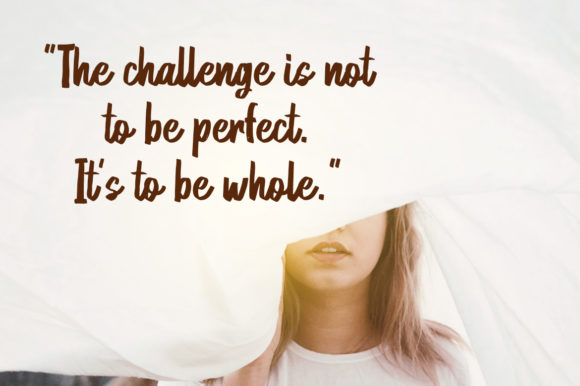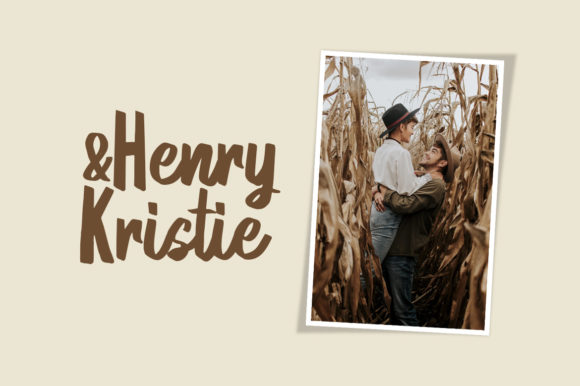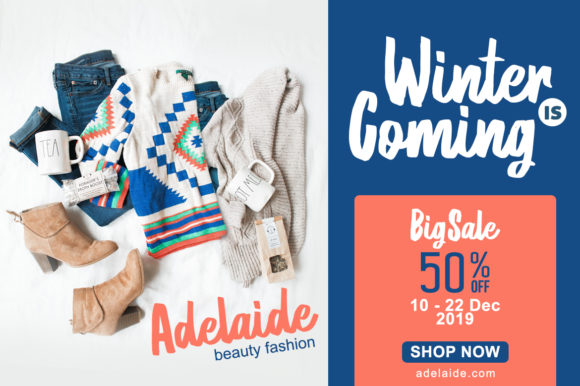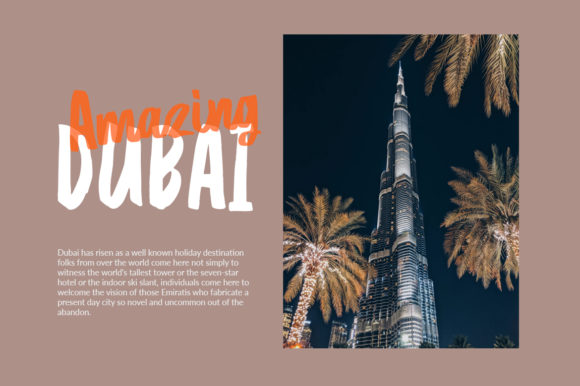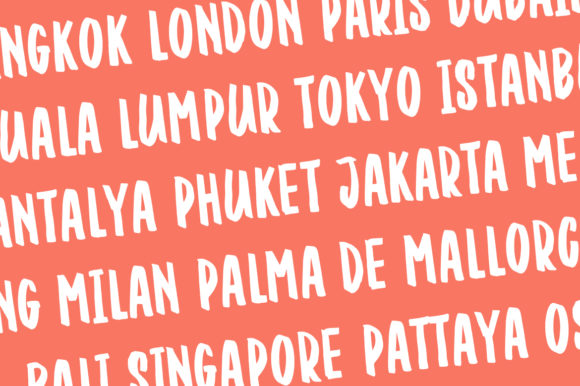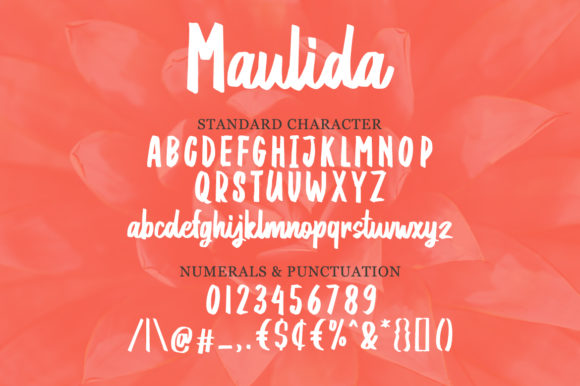
Maulida Font – Free Download
Introduction to Maulida Font
Maulida features unique strokes, making it beautiful and natural-looking.
Get inspired by its modern elegance .
Key Features of Maulida Font
Why Choose Maulida Font?
Maulida Font offers exceptional quality and versatility, making it a valuable addition to your design toolkit. Whether you’re creating for personal projects or commercial use, Maulida Font delivers professional results.